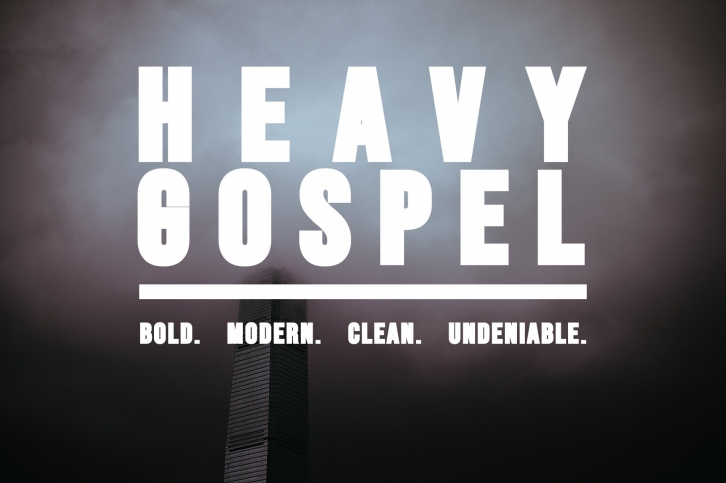
Heavy Gospel is an extremely bold and clean titling sans serif font that demands attention. It can be used for logo design, sale graphics, website titles and works well with large scale product such as sandwich boards, store windows and banners. It excels at sizes over 200px. Don't be afraid to push it to its limits. Your audience will notice.